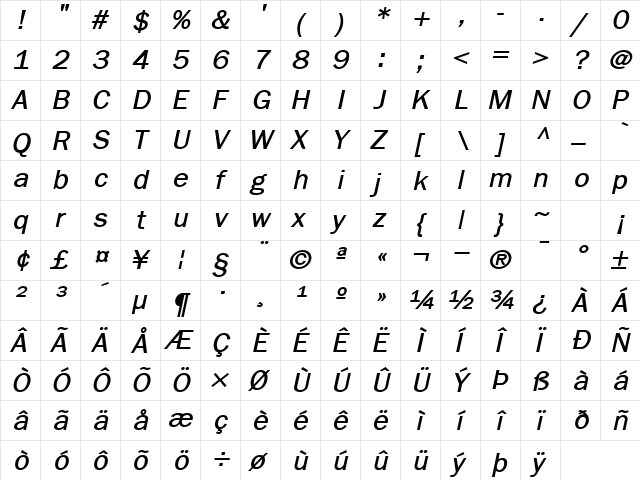
LibraryGothic BoldItalic Font Preview
LibraryGothic BoldItalic
LibraryGothic BoldItalic Font Details
Design Context for LibraryGothic Typeface
LibraryGothic has the quiet confidence of well-executed sans-serif typography: versatile, unobtrusive, and dependable at any size. The slanted form adds forward momentum and visual energy. Its bold stroke weight gives it real presence on the page.
A strong choice for UI design, app interfaces, bold signage, and corporate brand systems.
Font Pairing: Use LibraryGothic for headlines alongside a lighter-weight sans or serif for body copy to establish clear visual hierarchy.
Pro Tip: Pair LibraryGothic with a display or serif font for headlines — its neutral character makes it an excellent supporting player in complex typographic systems.